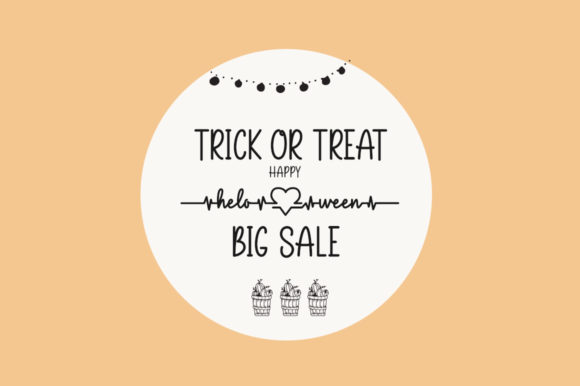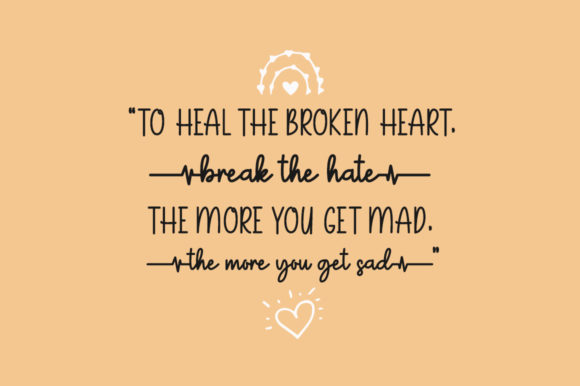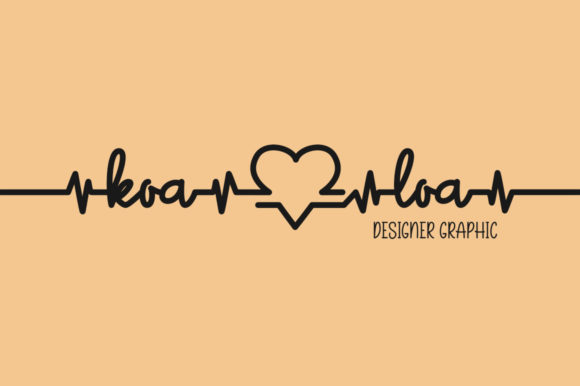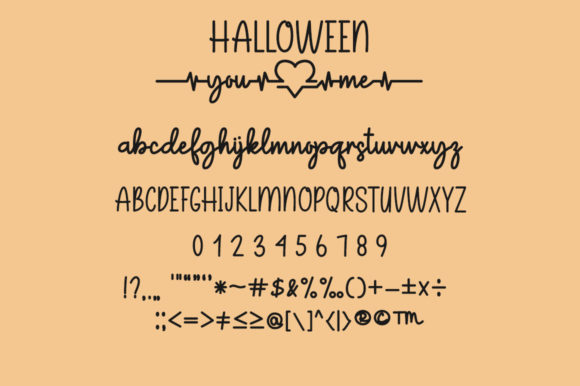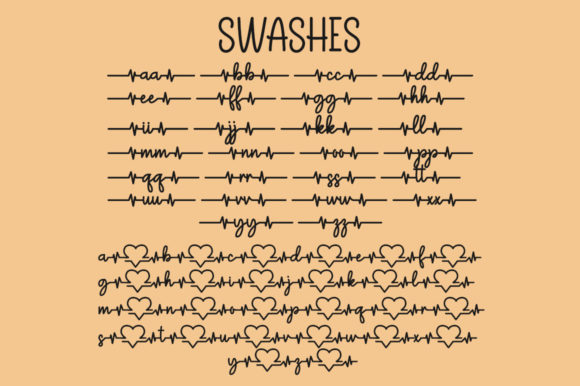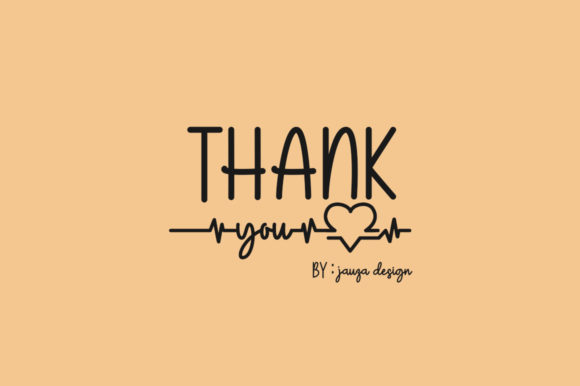
Introducing Halloween You Me Font: A Cute and Delicate Handwritten Font for Spooky Season
As the spookiest time of the year approaches, designers and crafters are on the lookout for the perfect font to add a touch of eerie elegance to their creations. Look no further than the Halloween You Me Font, a charming and delicate handwritten font that’s sure to cast a spell on your audience. In this article, we’ll dive into the features and benefits of this versatile font, and explore how you can use it to create spectacular designs for Halloween and beyond.
What is Halloween You Me Font?
Halloween You Me Font is a beautiful, handwritten font that’s specifically designed to capture the essence of the spooky season. With its delicate and intricate strokes, this font exudes a sense of whimsy and playfulness, making it perfect for a wide range of design projects, from invitations and party decorations to social media graphics and more.
One of the standout features of Halloween You Me Font is its PUA (Private Use Area) encoding. This means that you can access all of the font’s glyphs and swashes with ease, giving you unparalleled creative control over your designs. With PUA encoding, you can effortlessly swap out letters, add flourishes, and experiment with different combinations to create truly unique and eye-catching designs.
Incredibly Versatile Style
Halloween You Me Font boasts an incredibly versatile style that’s sure to adapt to any design aesthetic. Whether you’re going for a spooky and eerie vibe or a more playful and whimsical feel, this font can do it all. Its delicate strokes and cursive flair make it perfect for:
- Halloween invitations and party decorations
- Spooky social media graphics and blog posts
- Crafting and DIY project tutorials
- Handmade product labels and packaging
Why Choose Halloween You Me Font?
With so many fonts on the market, why choose Halloween You Me Font? Here are just a few reasons why designers and crafters are falling in love with this charming font:
- Unique and eye-catching: Halloween You Me Font is sure to stand out in a crowd, adding a touch of personality and whimsy to your designs.
- Easy to use: With PUA encoding, you can access all of the font’s glyphs and swashes with ease, making it simple to create stunning designs.
- Versatile: This font can be used for a wide range of design projects, from invitations and decorations to social media graphics and more.
- High-quality: Halloween You Me Font is a high-quality, professionally-designed font that’s sure to impress.
Tips and Tricks for Using Halloween You Me Font
To get the most out of Halloween You Me Font, here are a few tips and tricks to keep in mind:
- Experiment with glyphs and swashes: With PUA encoding, you can access a wide range of glyphs and swashes to add personality and flair to your designs.
- Mix and match with other fonts: Halloween You Me Font pairs beautifully with other fonts, so don’t be afraid to experiment with different combinations.
- Play with color and texture: Add an extra layer of depth and interest to your designs by experimenting with different colors and textures.
| Font Name | Halloween You Me Font |
| Author | jauzadesign |